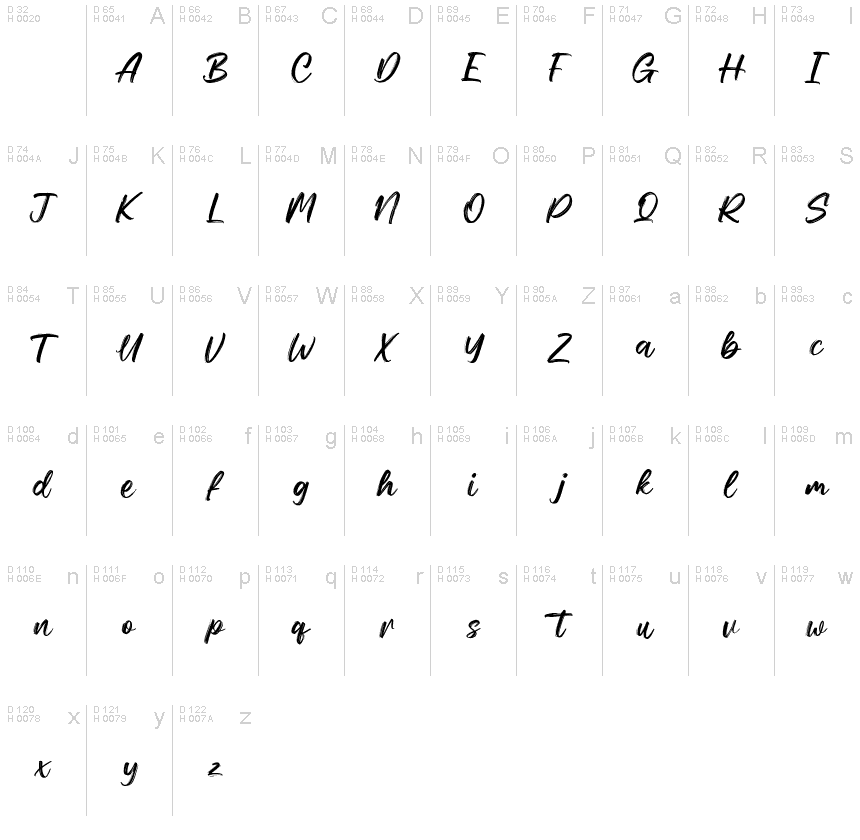
Blaze Spirit Free Regular
Blaze Spirit, designed by Maulana Creative, is a captivating dry brush font that exudes an artistic flair. Its semi-bold weight adds a touch of boldness to any project. With its expressive strokes and marker-like appearance, this font is perfect for creating eye-catching logos, posters, and album covers. Its versatility makes it suitable for a wide range of projects including fashion branding, handcrafted products labeling, and social media graphics. Blaze Spirit will effortlessly infuse your designs with a sense of creativity and uniqueness that will leave a lasting impression on your audience.